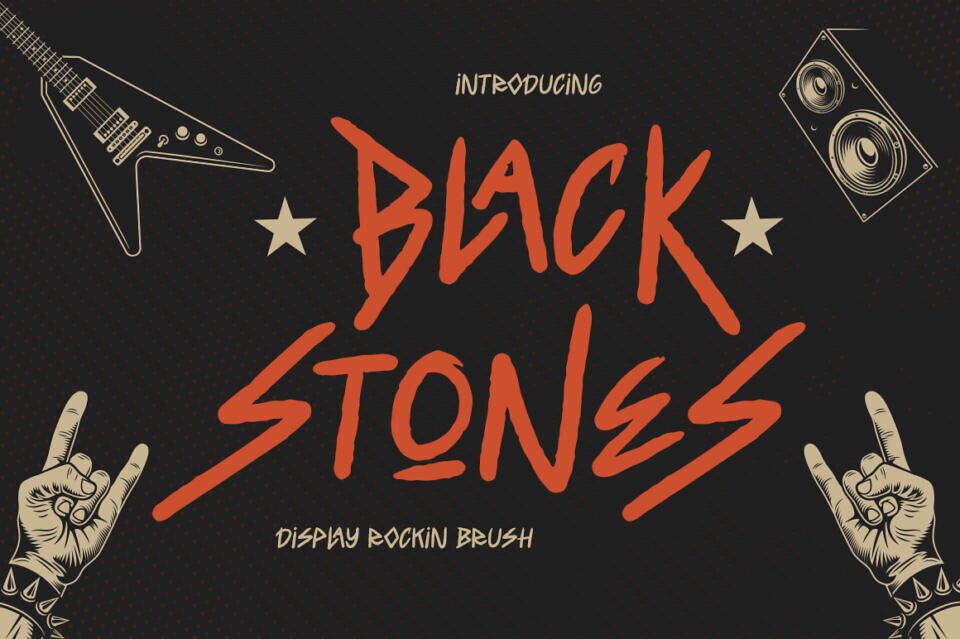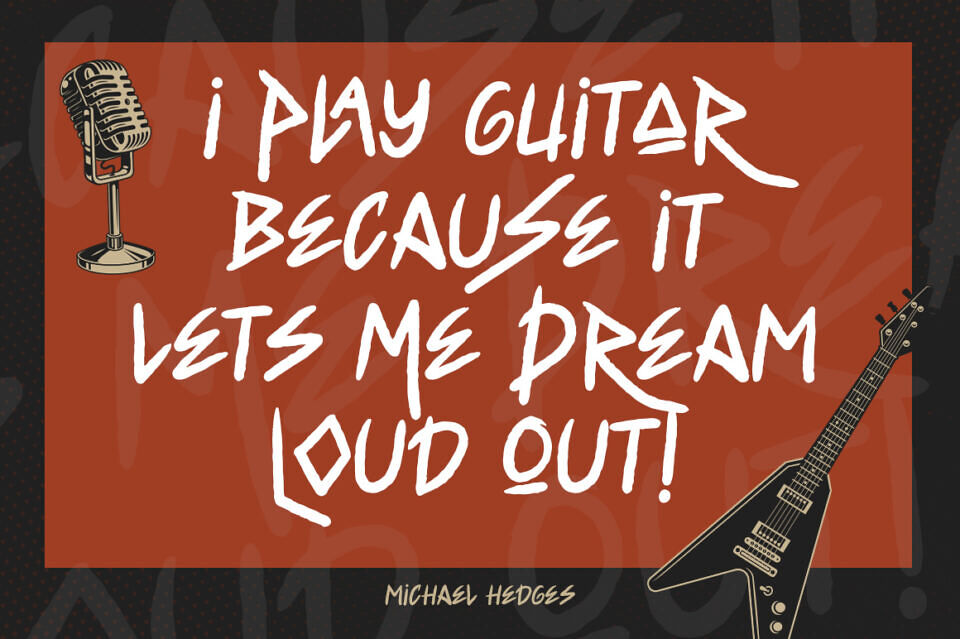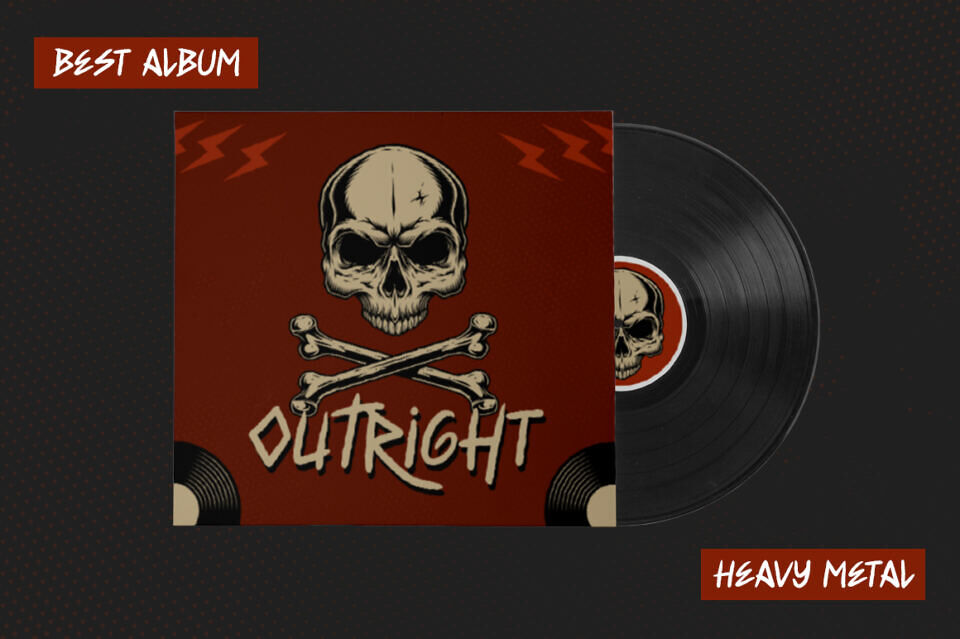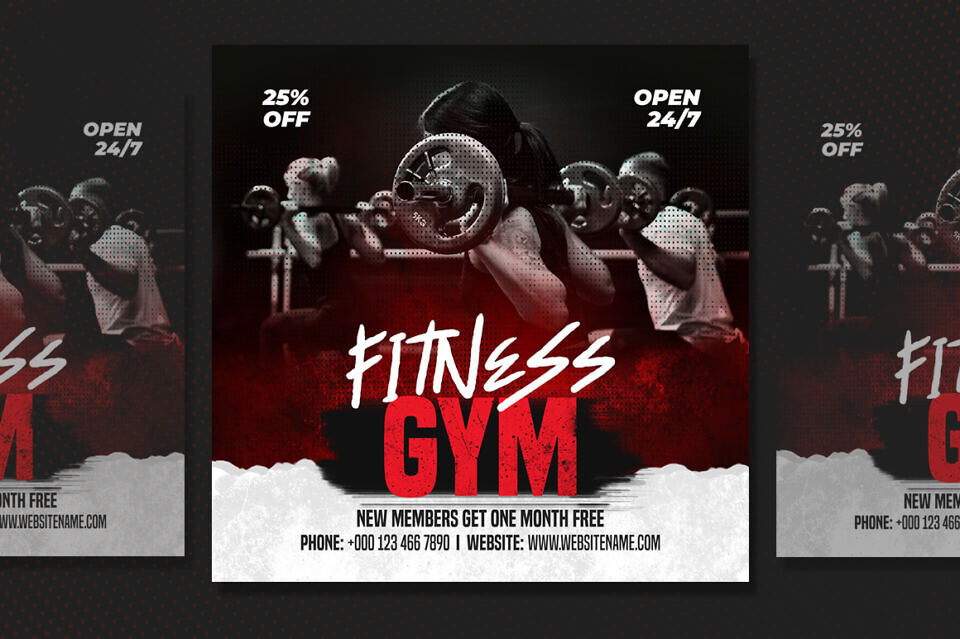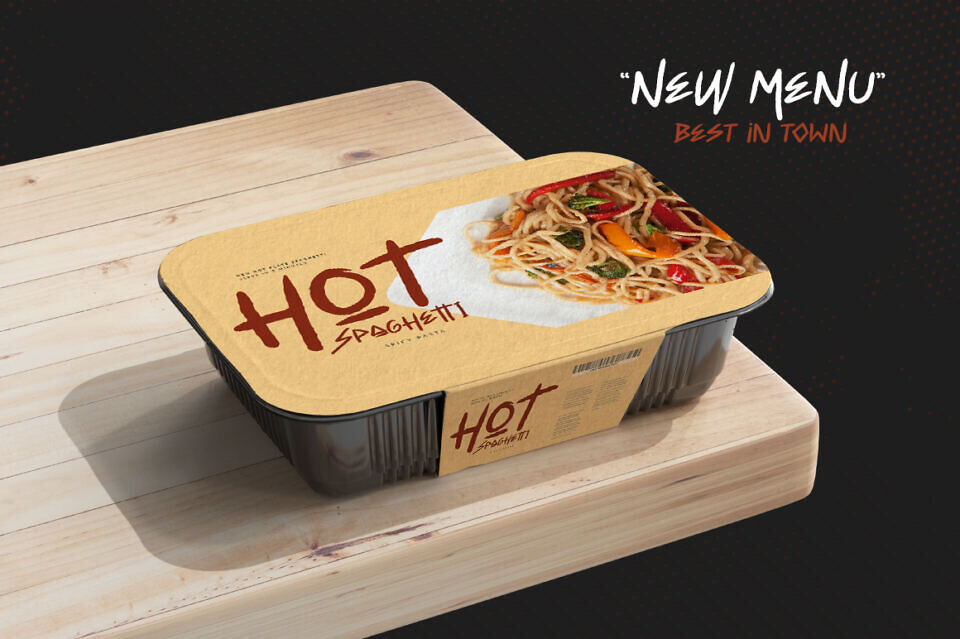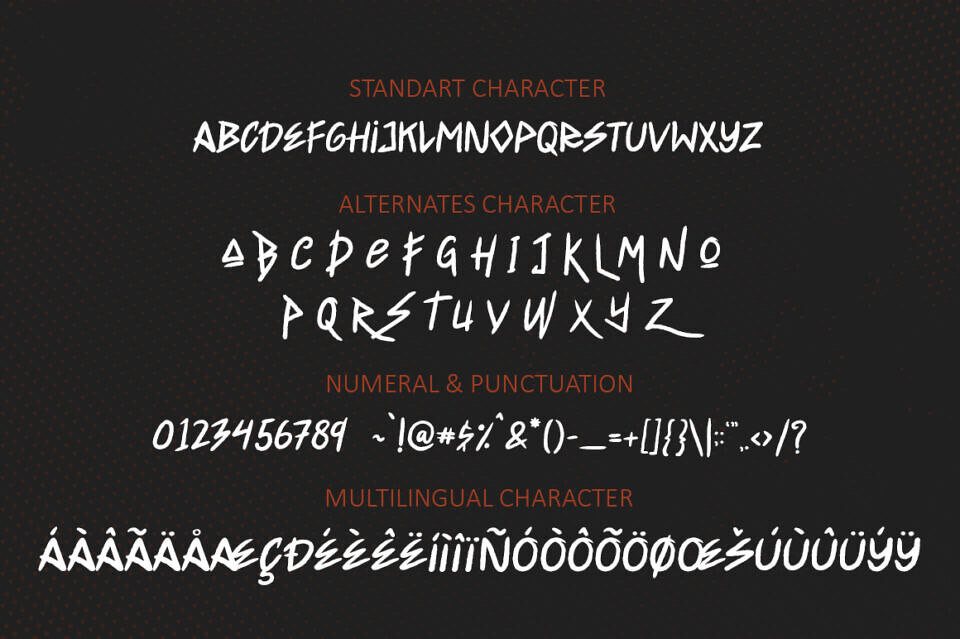
Black Stones Font
Black Stones is a display brush script font with a rock music concept. The strokes alternates make this font outstanding and look like a handwritten grunge line, very great for logotype.
This type of font is perfectly made to be applied especially in headlines, e-sport logos, food packaging, fashion magazine, labels or any type of advertising purpose.
Designed by: Illushvara Design